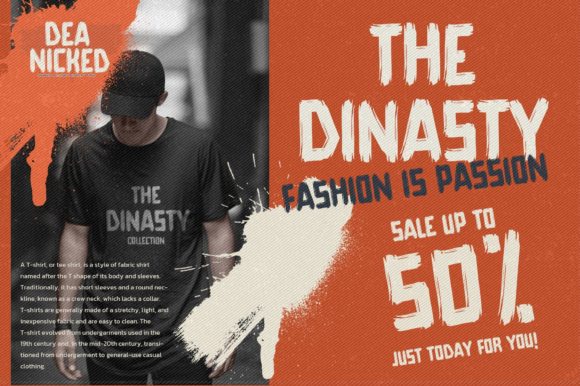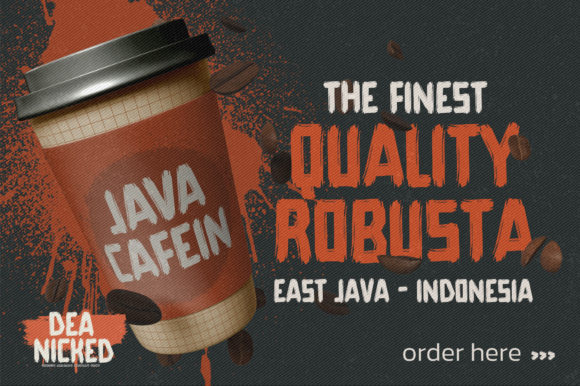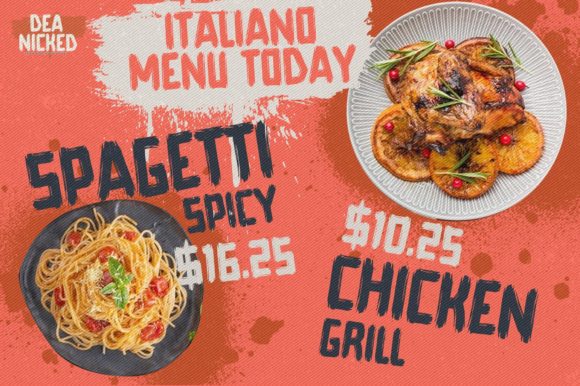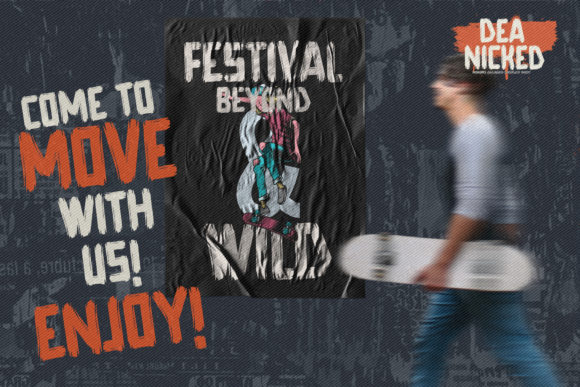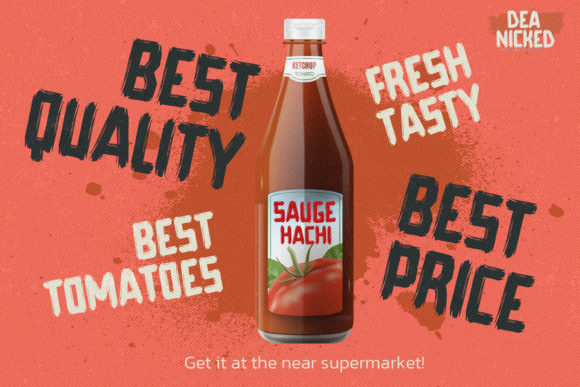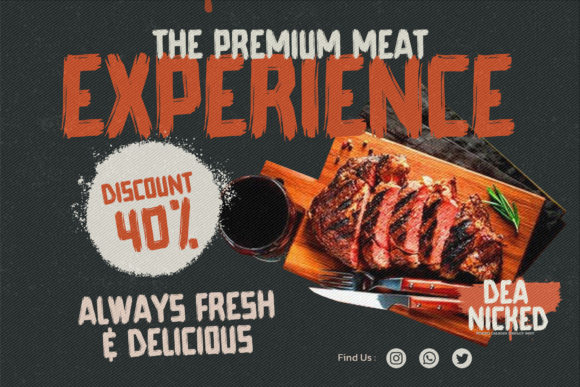
Give Your Designs a Confident Boost with the Dea Nicked Font
Have you ever been brainstorming a new design project and suddenly, a burst of creativity hits you? The ideas start flowing, and you can’t wait to bring them to life. This is exactly what happened when I stumbled upon the Dea Nicked Font – a cool, bold, and brushed display font that screams confidence and personality.
Dea Nicked Font is the perfect choice for designers who want to add a touch of edginess to their projects. Its unique character and style make it stand out from the crowd, ensuring that your designs are noticed and remembered. Whether you’re working on a logo, a billboard, or a social media campaign, Dea Nicked Font is the perfect tool to help you make a lasting impression.
As a valuable addition to any designer’s toolkit, Dea Nicked Font is a must-have for anyone looking to elevate their designs and take their creative game to the next level.
Dea Nicked Font Key Features
- Font Family: Dea Nicked Font is a sans-serif font family.
- Font Sizes: Supports a wide range of font sizes, from 8pt to 72pt.
- Resolution: Optimized for use at high resolutions (up to 300 DPI).
- Unique Characteristics: Features a distinctive, hand-drawn feel with a unique ‘nicked’ aesthetic.
- Font Weight: Available in multiple weights, including Light, Regular, Medium, Bold, and Extra Bold.
Dea Nicked Font Review
Overall, I’m impressed with the Dea Nicked Font, but it’s not without its quirks. Let’s start with the good stuff: ✨ The font’s unique, hand-drawn feel is perfect for adding some personality to your designs. It’s especially great for titles, headings, and other attention-grabbing elements. The font’s also relatively versatile, working well in a variety of contexts, from modern websites to traditional print materials.
Another strength of the Dea Nicked Font is its legibility. Despite its playful, handwritten feel, the font remains easy to read, even at smaller sizes. This makes it a great choice for body text, as well as headings.
- ⚠️ Limited character set: The Dea Nicked Font only includes a limited range of characters, which may make it less suitable for languages that require a broader character set.
- ⚠️ Not ideal for small text: While the font is legible, it’s not the best choice for very small text, where the hand-drawn feel can become distracting.
Overall, the Dea Nicked Font is a great choice for designers looking to add some personality to their work. With its unique feel and versatility, it’s sure to be a hit in the right context. Just be aware of its limitations, and use it thoughtfully to get the best results.
Dea Nicked Font: A Practical Application Guide
To get the most out of Dea Nicked Font, use it for:
- Displaying titles and headings.
- Creating visually appealing quotes and captions.
- Adding a touch of elegance to your designs.
Remember to experiment with different font sizes, colors, and combinations to achieve the desired effect.
Alternatives to Dea Nicked Font
Great Vibes Font is a modern, elegant script font that is perfect for adding a touch of sophistication to your designs. It is ideal for use in headings, titles, and logos.
Compared to Dea Nicked Font, Great Vibes Font has a more refined and polished look, making it suitable for high-end designs. It also has a wider range of ligatures and alternates, giving designers more flexibility.
Alex Brush Font is a beautiful, handwritten font that is great for adding a personal touch to your designs. It is perfect for use in quotes, titles, and other text elements where a more casual feel is desired.
Compared to Dea Nicked Font, Alex Brush Font has a more organic and natural look, making it suitable for designs that require a more relaxed feel. However, it may not be as suitable for formal or corporate designs.
Dancing Script Font is a lively, cursive font that is perfect for adding a sense of movement and energy to your designs. It is ideal for use in headings, titles, and other text elements where a dynamic feel is desired.
Compared to Dea Nicked Font, Dancing Script Font has a more playful and whimsical look, making it suitable for designs that require a fun and youthful feel. However, it may not be as suitable for formal or professional designs.
Q: What is the recommended font size for optimal readability with Dea Nicked Font?
The recommended font size for optimal readability with Dea Nicked Font is between 12 and 14 points, depending on the context and intended use. However, this may vary depending on the specific application, screen resolution, and viewing distance. It’s always a good idea to test the font at different sizes to ensure optimal readability.